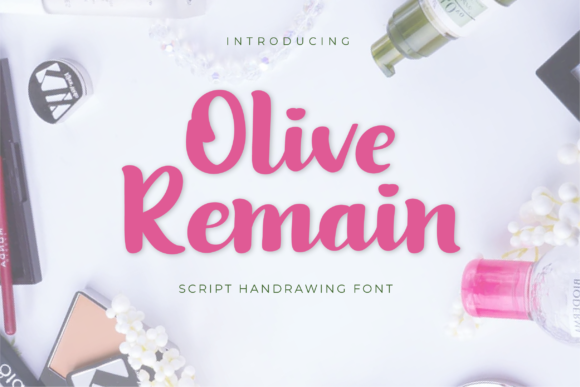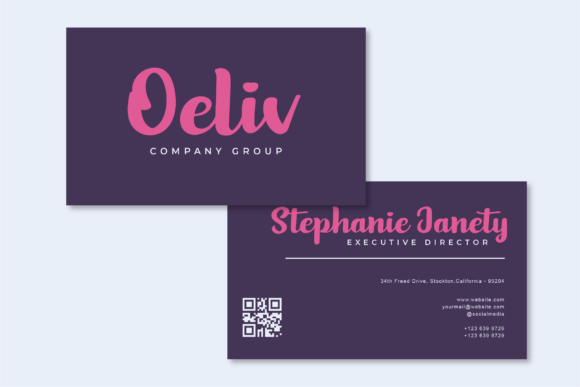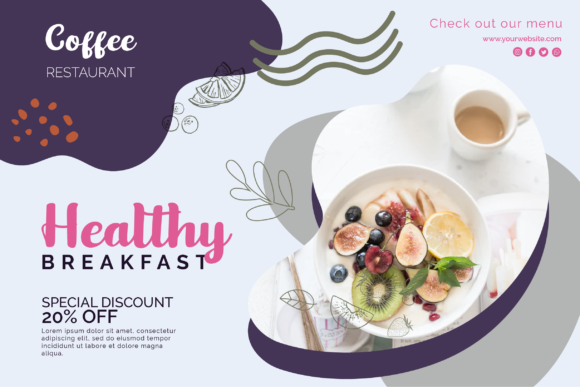
Olive Remain Font
Olive Remain is a bold handwritten font, carefully handcrafted to become a true favorite. Its casual charm makes it appear wonderfully down-to-earth, readable and, ultimately, incredibly versatile. Olive Remain will look outstanding in any context, whether it’s being used on busy backgrounds or as a standalone headline!